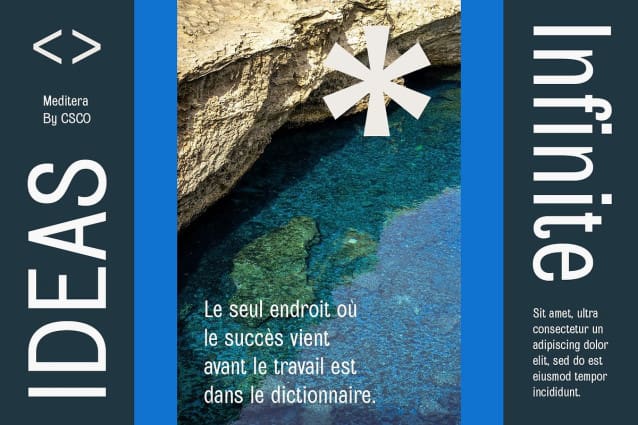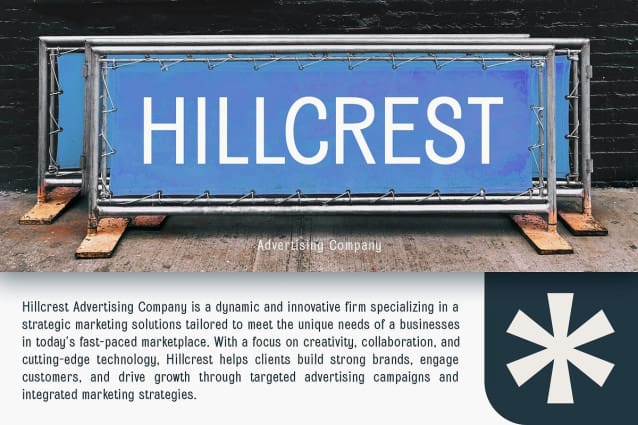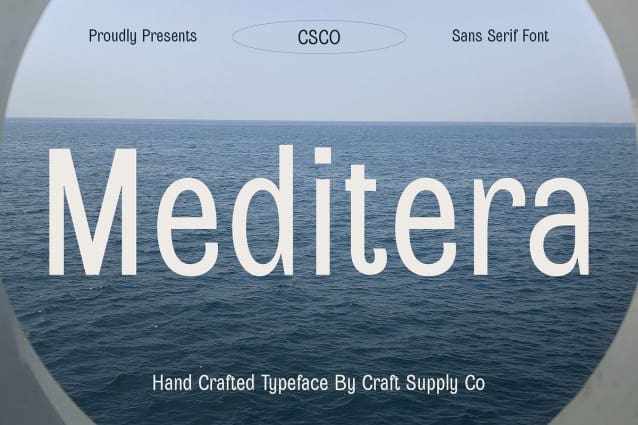
Meditera Font
Meditera Font – Condensed Sans Serif: Empowering Corporate Elegance. Streamlined Condensed Sans Serif Meditera introduces a condensed sans serif typeface designed for commanding presence and professional elegance. Its streamlined form combines efficiency with sophistication, making it an ideal choice for corporate and professional applications.
Low Contrast for Bold Impact With its low contrast design, Meditera exudes a sense of power and authority. The font’s consistent stroke widths ensure legibility and clarity, while its bold presence makes a statement in any design setting.
Versatile for Corporate and Display Use Meditera Font is a versatile typographic solution suitable for both corporate communications and display purposes. Whether used in annual reports, presentations, or signage, Meditera commands attention with its authoritative demeanor.
Efficient Space Utilization The condensed form of Meditera Font maximizes space efficiency without sacrificing readability. Its narrow proportions allow for more text to fit within limited space, making it an ideal choice for headlines, banners, and other display applications.
Elevate Your Brand with Professionalism Elevate your brand identity with the commanding presence of Meditera Font. Whether used in corporate branding materials, professional documents, or display advertisements, Meditera embodies sophistication and authority, leaving a lasting impression on your audience.